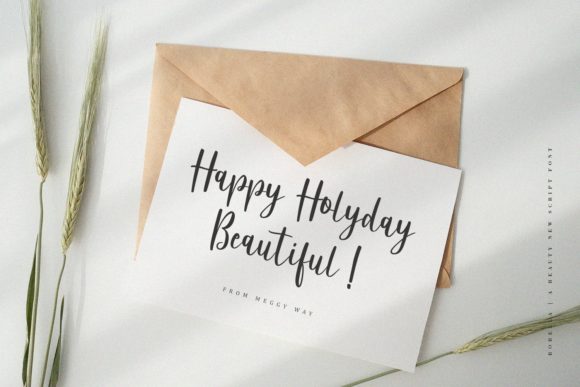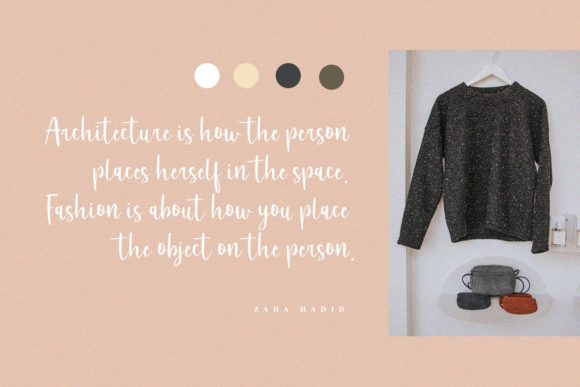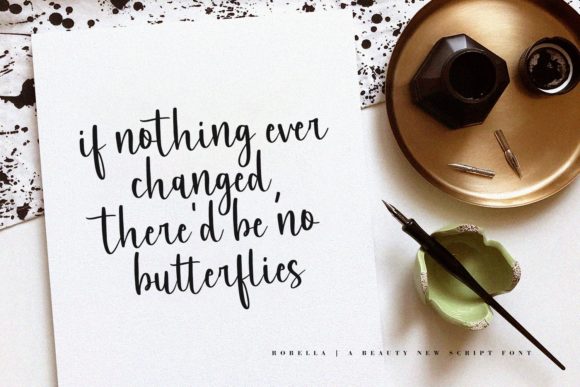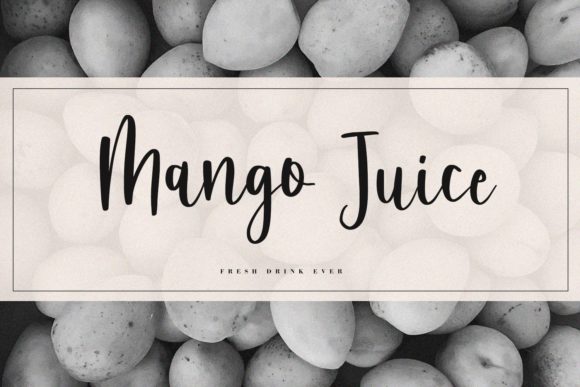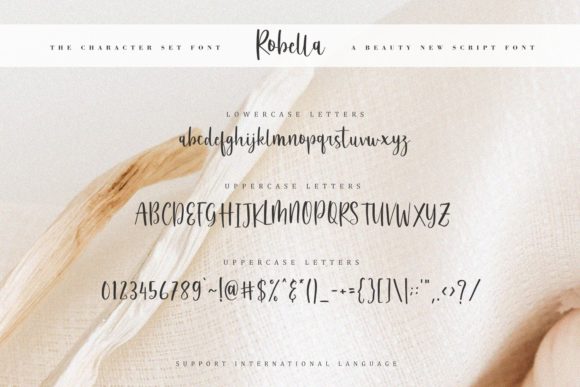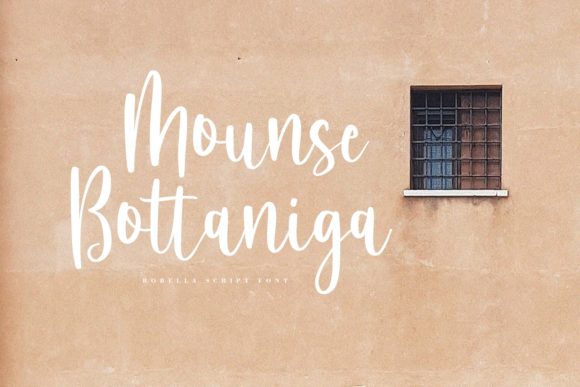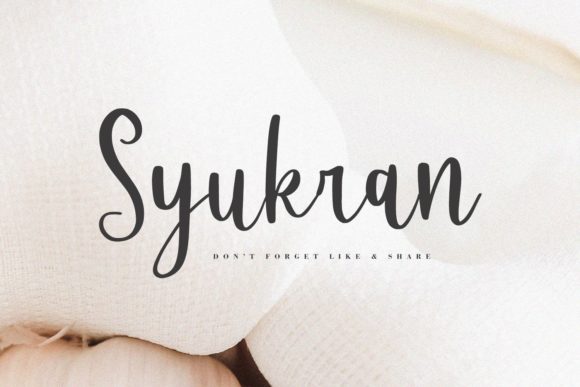
Robella Font
About Robella Font
Robella is an elegant and cute handwritten font. It is perfect for magazines, book covers, branding, mugs and much more!